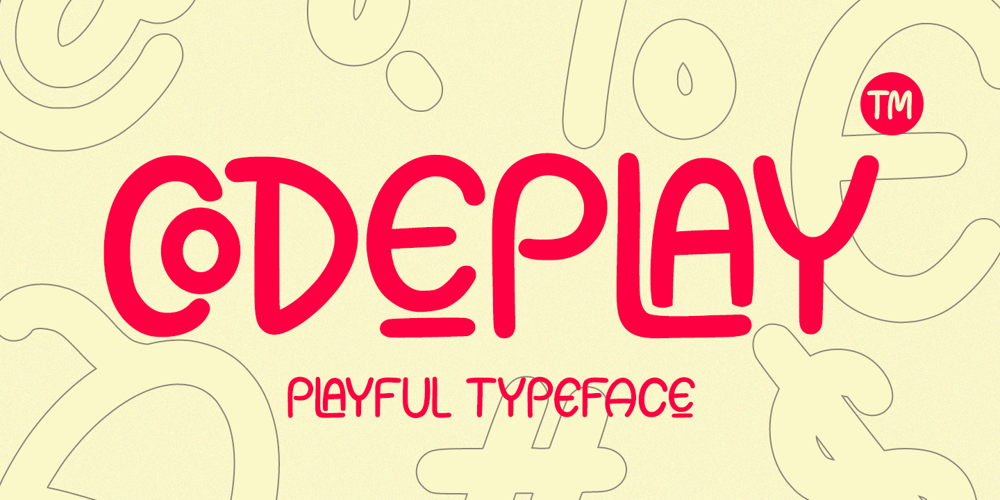
Codeplay Font Family was designed by Gie Studio and published by Gie Studio. Codeplay contains 1 styles and family package options. Are you looking for handwritten originals with fun characters? Yes, you will find it right here.Codeplay is a original handwritten font. It is suitable for svg designs, pottery, shirts, hats, tote bags, wall art, interior prints, and get creative with its childlike playfulness.Codeplay includes Multilingual Options to make your branding globally acceptable.Features: Funny Ligatures Swash collection Multilingual Support 83 country PUA Encoded Numerals and Punctuation Thank you for your visit and downloading premium fonts from Gie StudioDesigners: Gie Studio